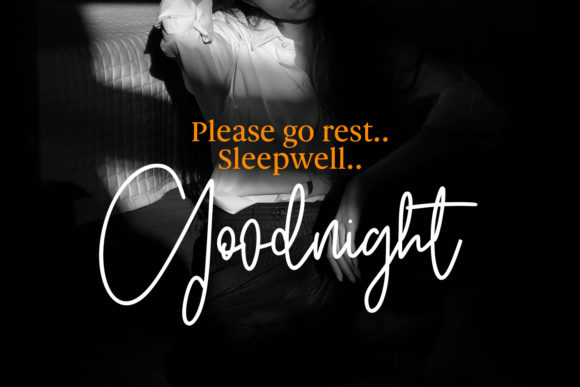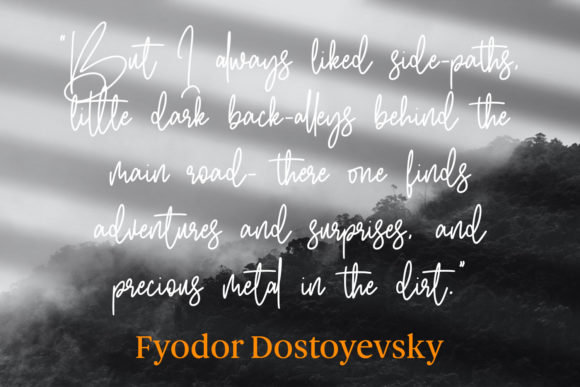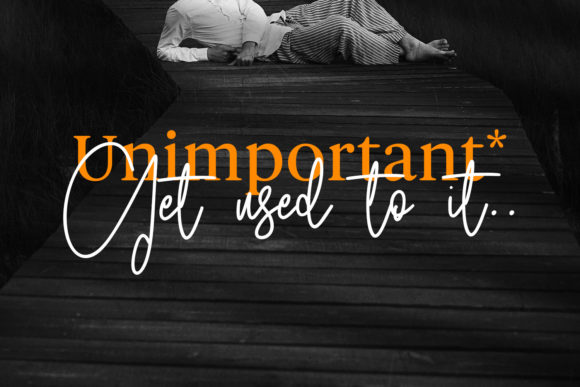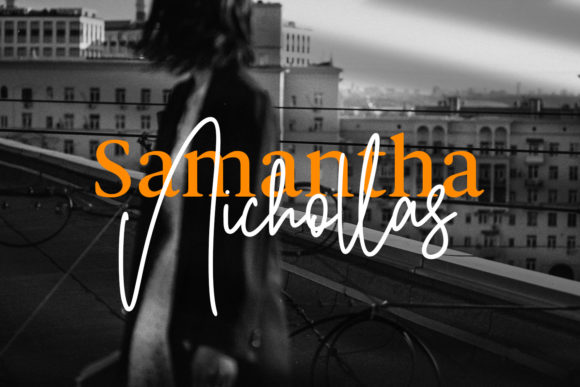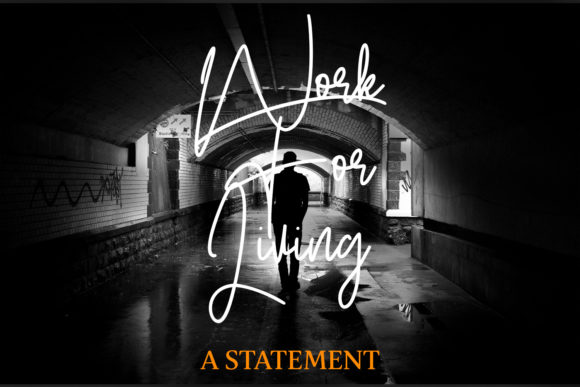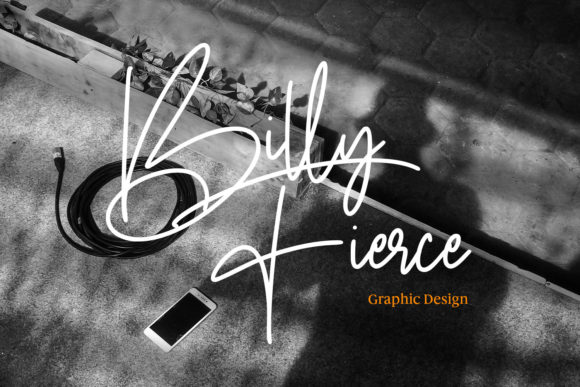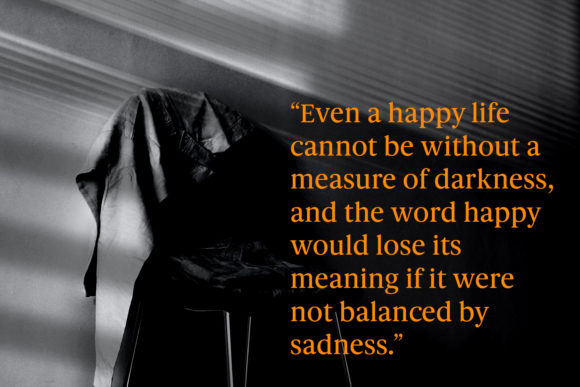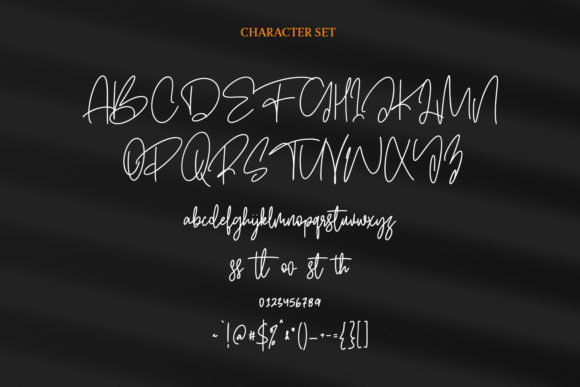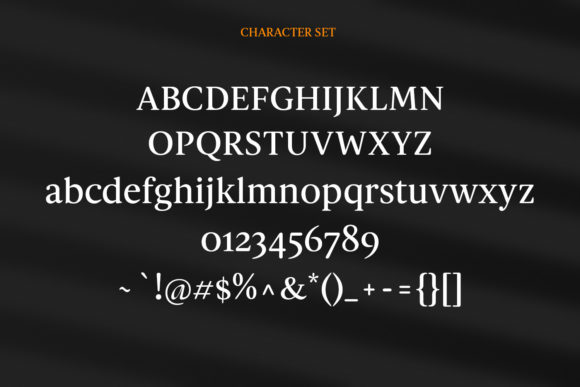
Jollines Font Duo Font
About Jollines Font Duo Font
Jollines Font Duo is a stunning and comprehensive duo font (script and serif), ideal for giving your projects a branded but friendly feel. This font is PUA encoded which means you can access all of the glyphs and swashes with ease!